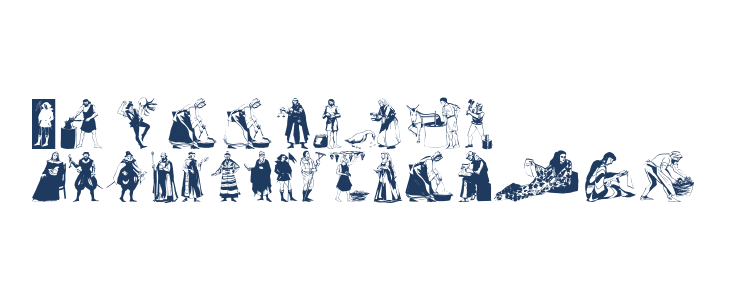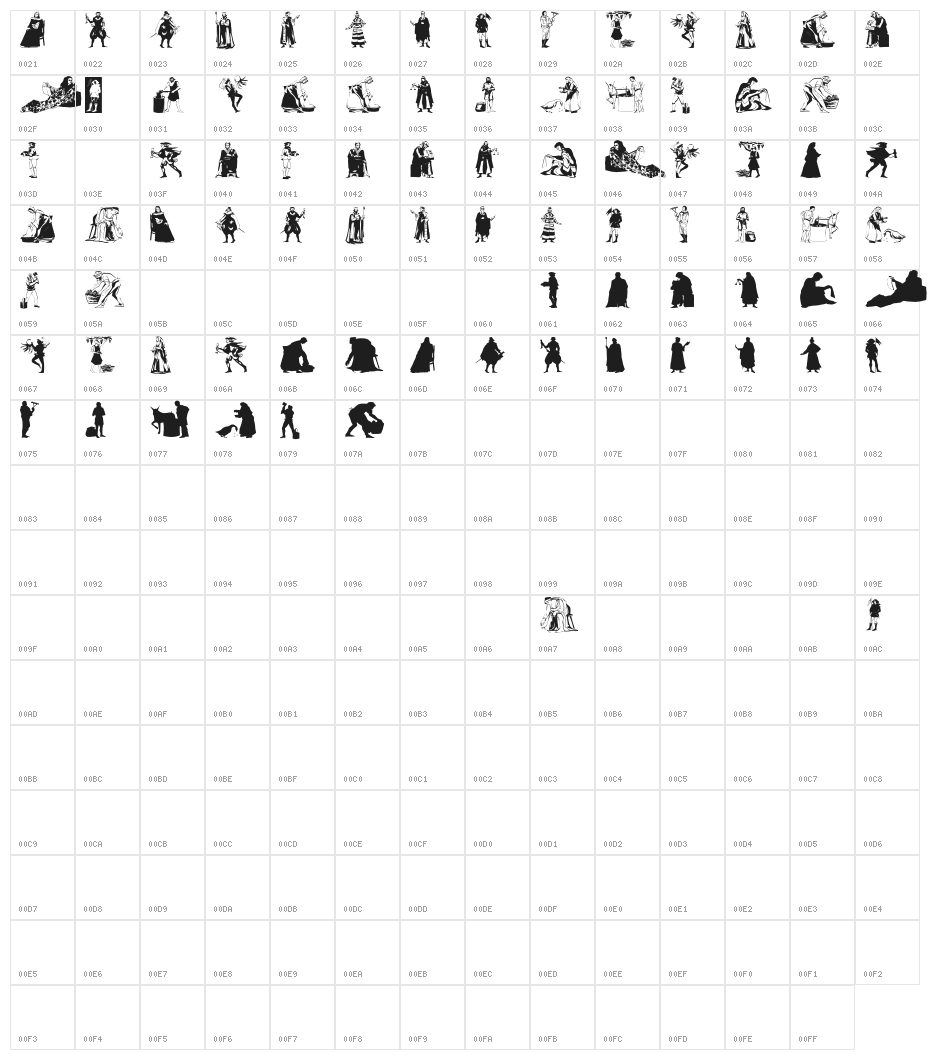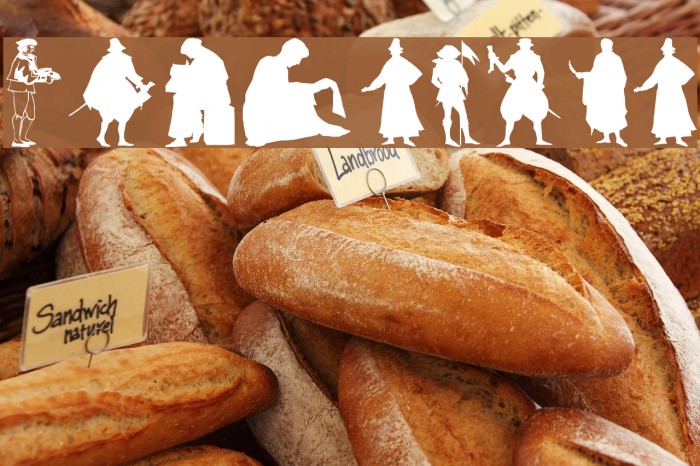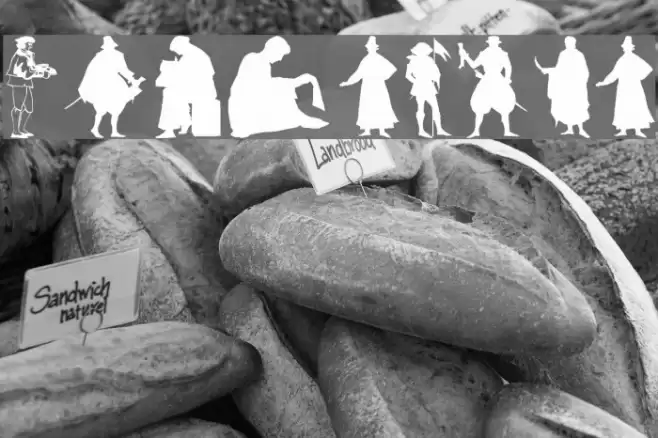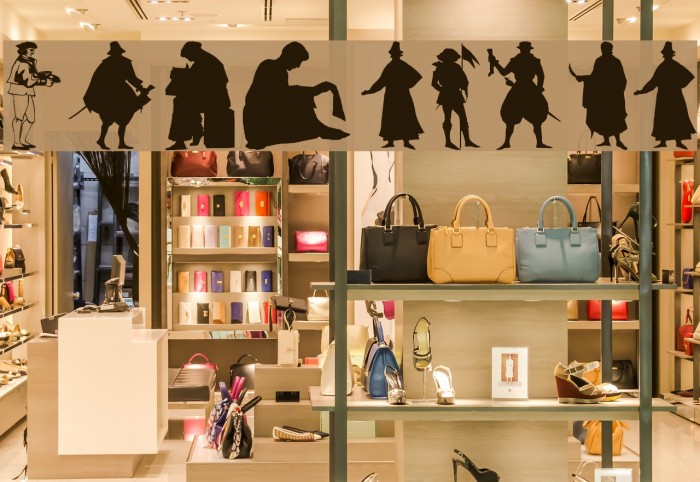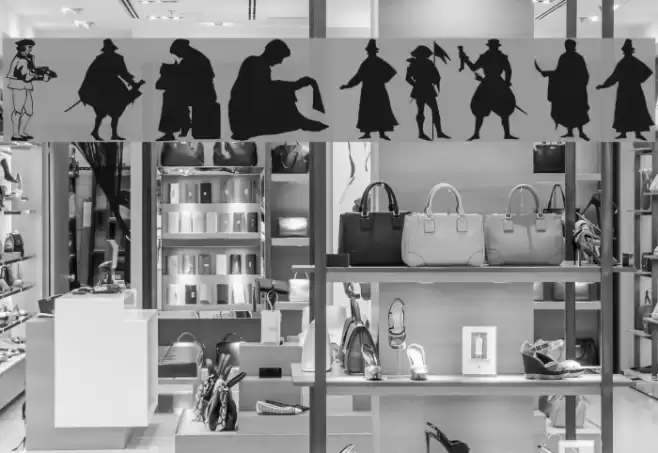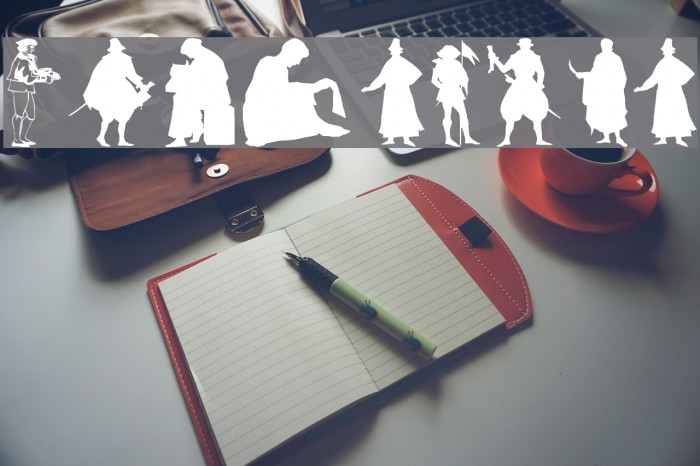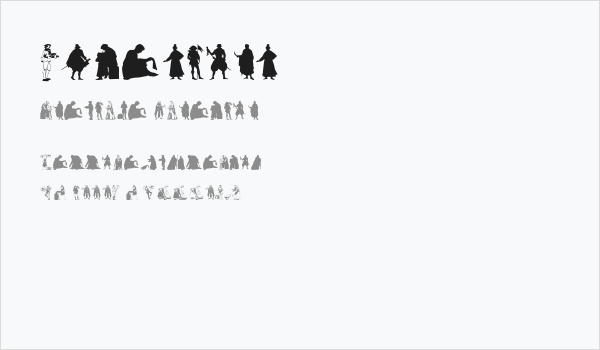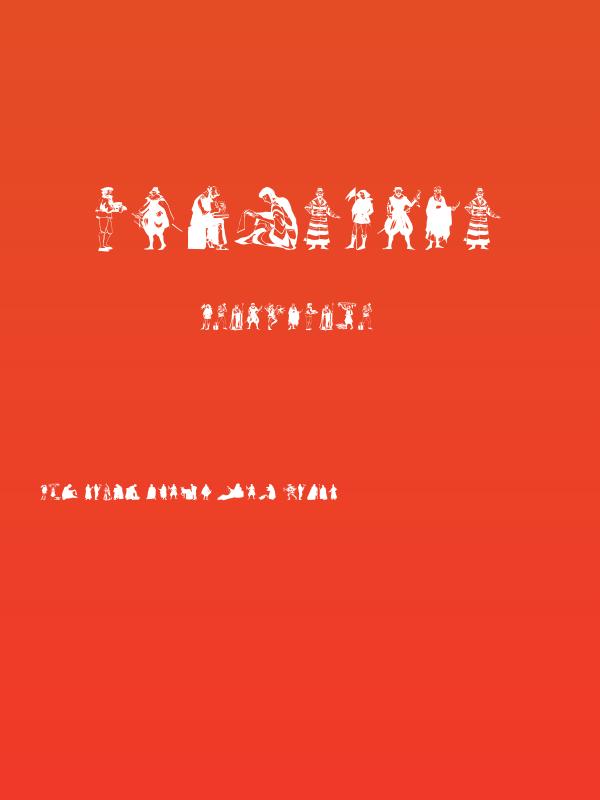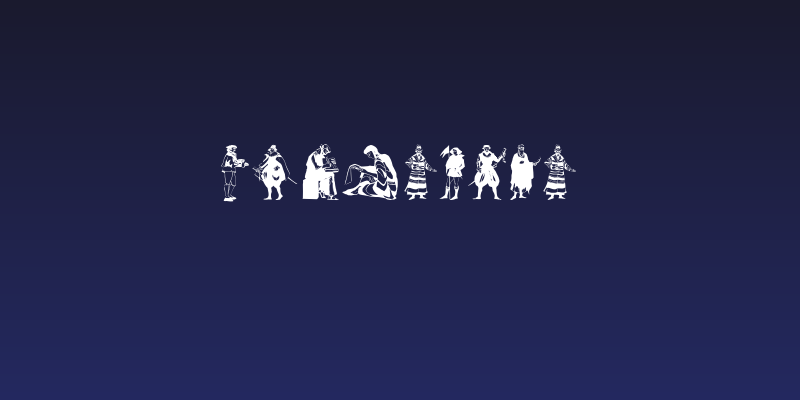
Ancestors Font
Ancestors Description
A decorative font consisting of detailed silhouette illustrations of historical or ancestral figures in various poses and activities, resembling scenes from past eras.
Overall StyleVintage, Historical
Use CaseHeadlines, Logos, Themed decorative text
Proposed ProjectsHistorical presentations, themed invitations, cultural heritage projects, theatrical posters, educational materials.